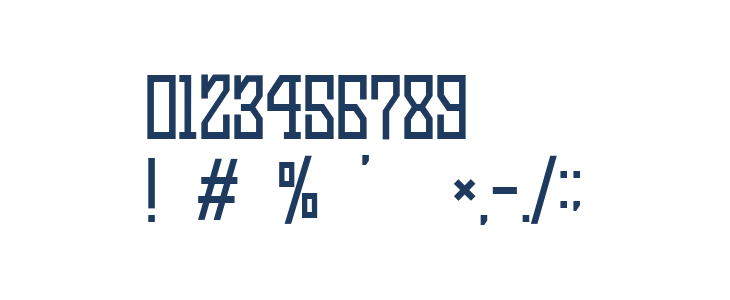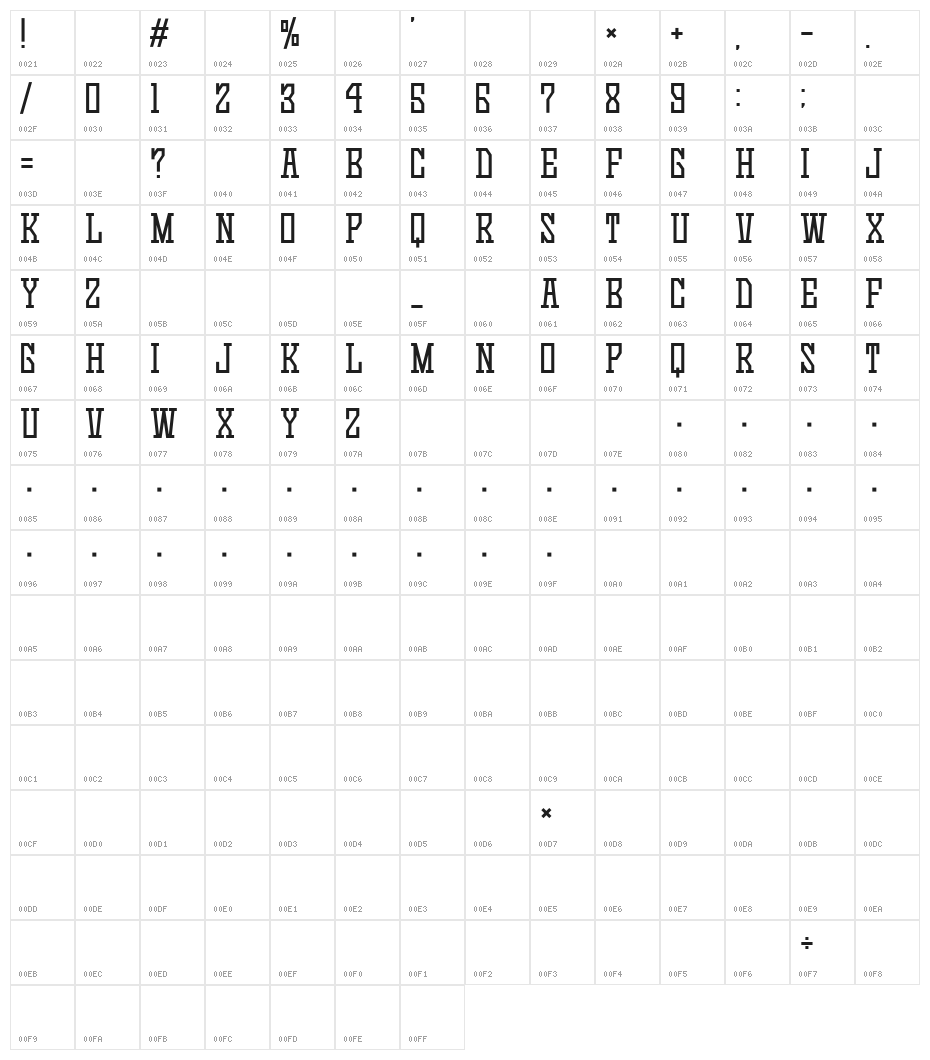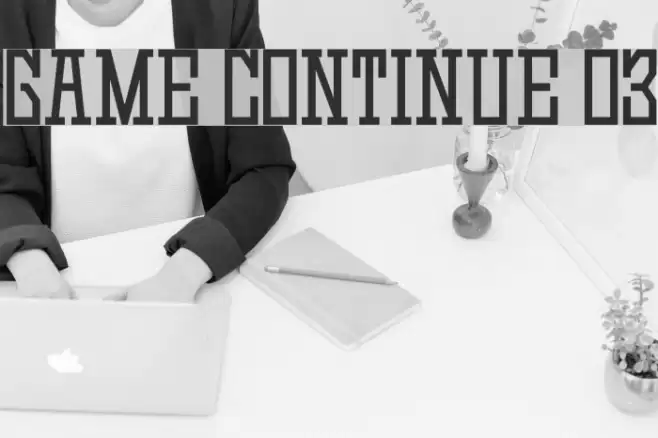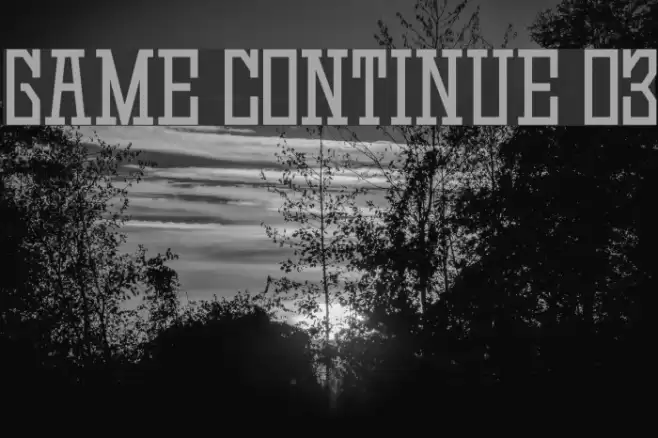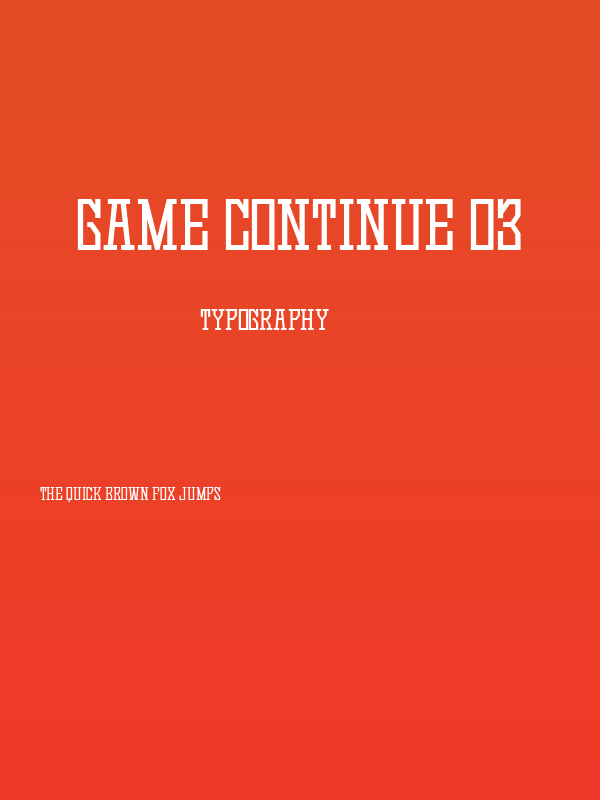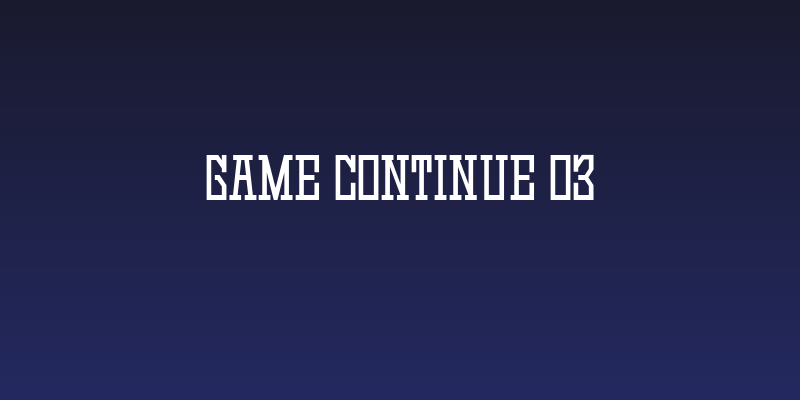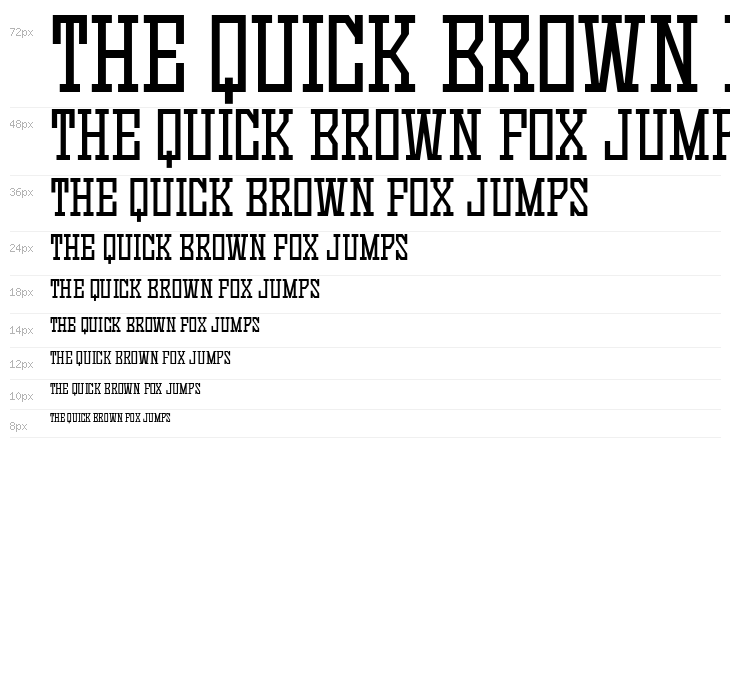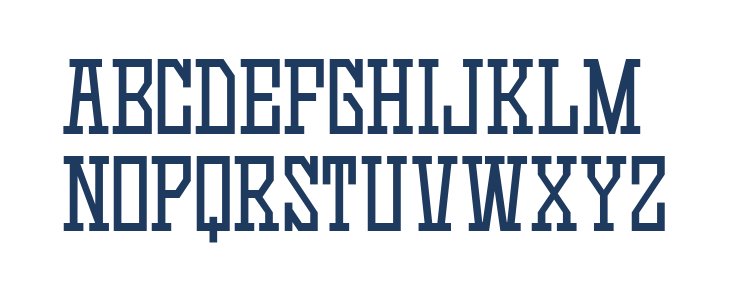
Game Continue 03 Font
Game Continue 03 Description
This font features a bold, geometric design with a strong presence. The characters are constructed with sharp angles and straight lines, giving it a modern and industrial feel. The uppercase letters are tall and narrow, while the lowercase letters maintain a consistent style, creating a cohesive look. The numerals are distinct and easy to read, with a similar angular design. Special characters are included, matching the overall aesthetic. This font is ideal for projects that require a bold and impactful statement.
| Proposed Projects | Ideal for branding, posters, headlines, and any project needing a strong, modern look. |